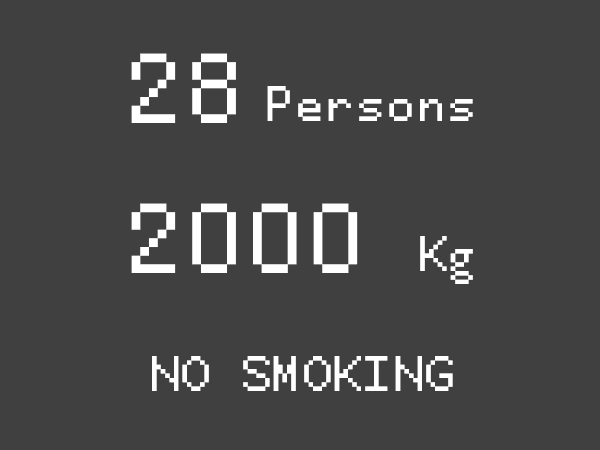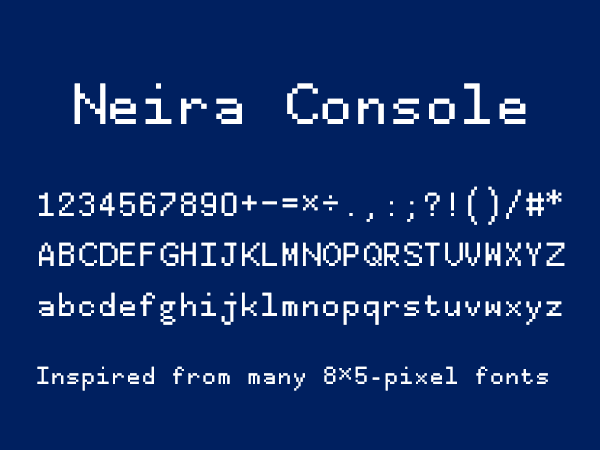
• Meet Neira Console! A monospaced font inspired from serveal monospaced fonts and even single proportional font, winch is Unevensett2K26's UEK Mesgentia, Helena Zhang's Departure Mono, TakWolf's Fusion Pixel, my own Thalia Mono, and even the proportional Amsi Pro font. This font is properly monospaced instead of being semi-proportional like UEK Mesgentia. Perfect for coding, for pixel arts, and for projects with code blocks included.
28/04/2026 Update (DD/MM/YYYY):
- Superscript and Subscript numbers added
- Added "Trade Mark" symbol for unregistered branding trademarks
- Decreased the width of uppercase "O" and “Q”
- Increased the width of uppercase “U”
- Slightly improved digit “5”
21/05/2026 Update (DD/MM/YYYY):
- Addition of serval latin glyphs
- Ligatures are added
- Added the vulgar fractions
- Optimized the font spacing
- Optimized the height at 'ampersand' and the ‘section sign’
- Some glyphs related for mathematical usages are added